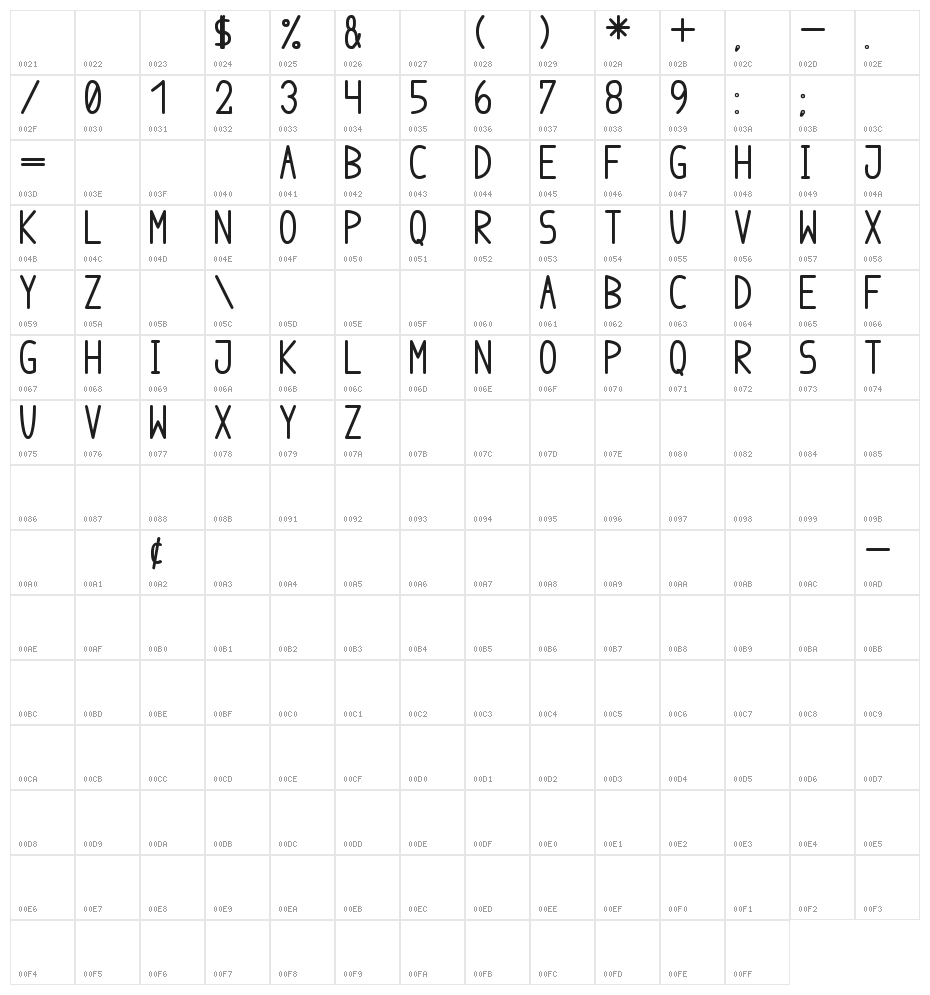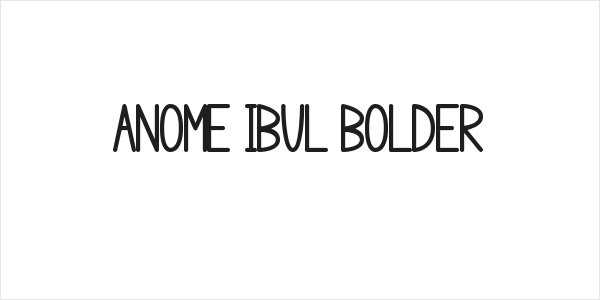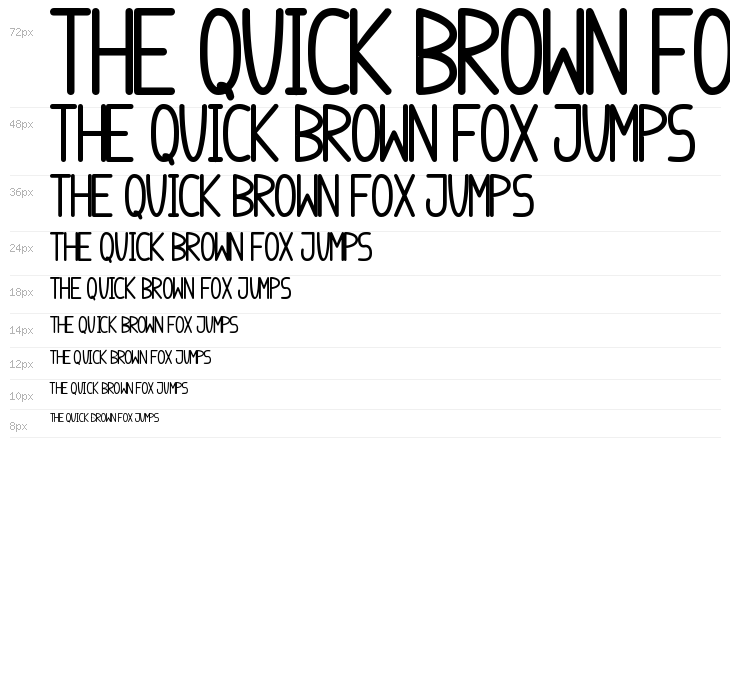
anome ibul bolder Font
anome ibul bolder Description
This font features a bold, rounded style with a playful and modern appearance. The characters are uniformly thick, providing a consistent visual weight across all letters and numbers. The rounded edges and smooth curves give it a friendly and approachable feel, making it suitable for a variety of creative projects. The uppercase and lowercase letters maintain a cohesive design, while the numerals and special characters complement the overall aesthetic. The font's clean lines and lack of serifs contribute to its contemporary look, making it versatile for both digital and print media.